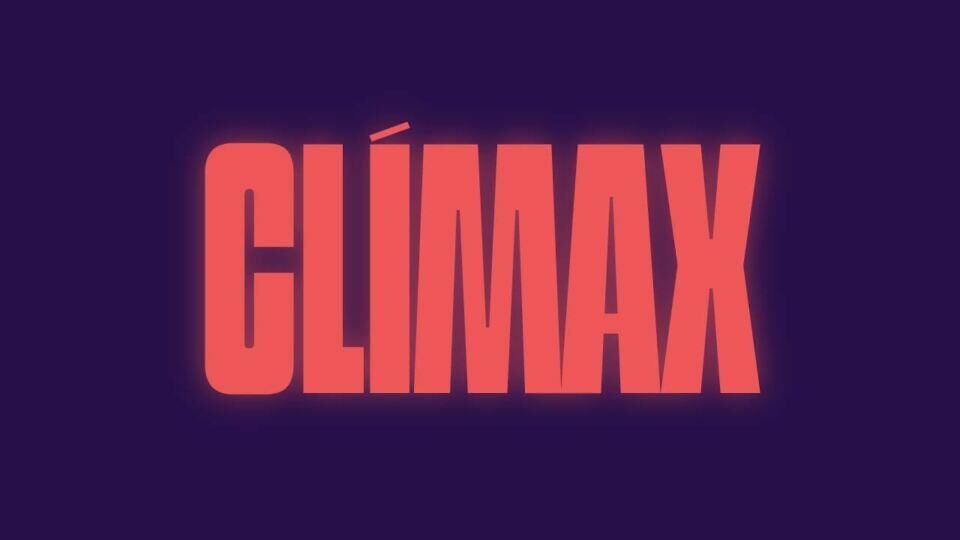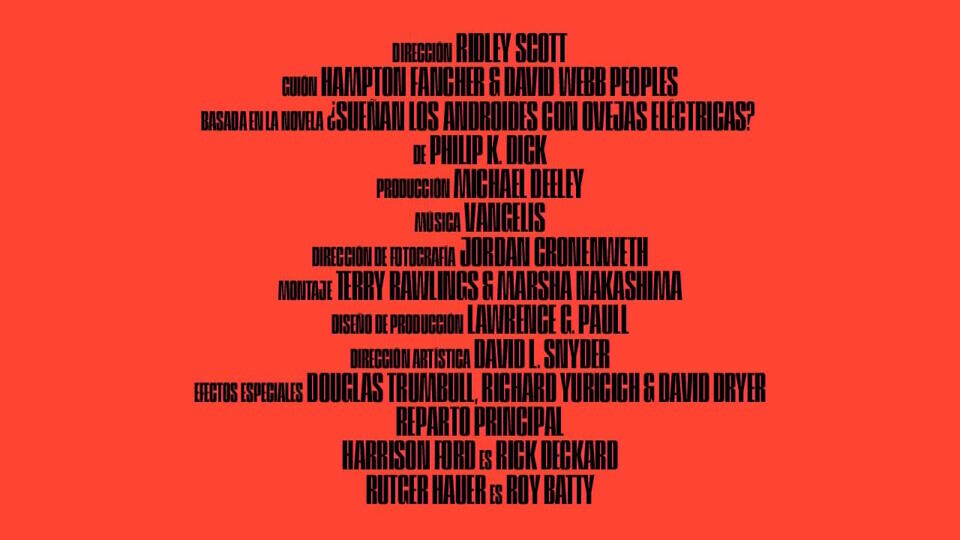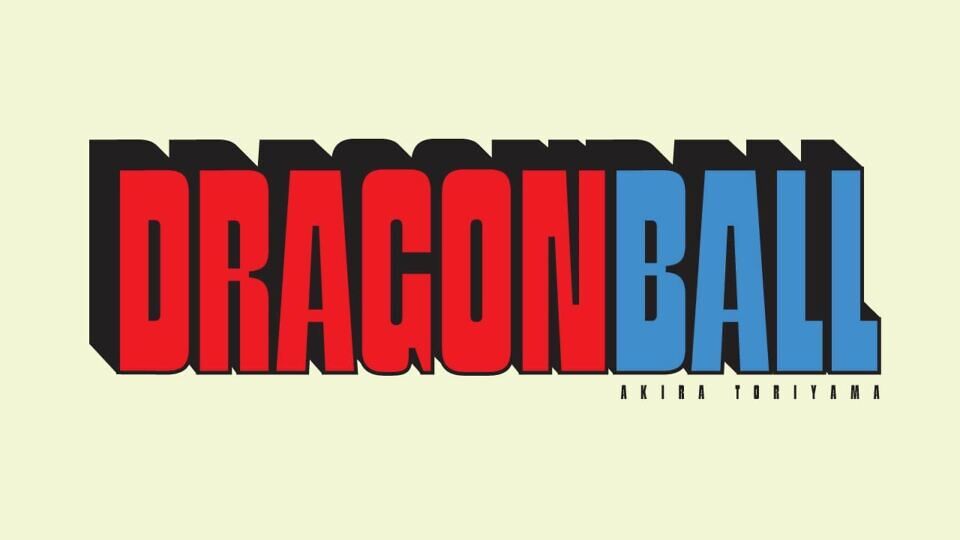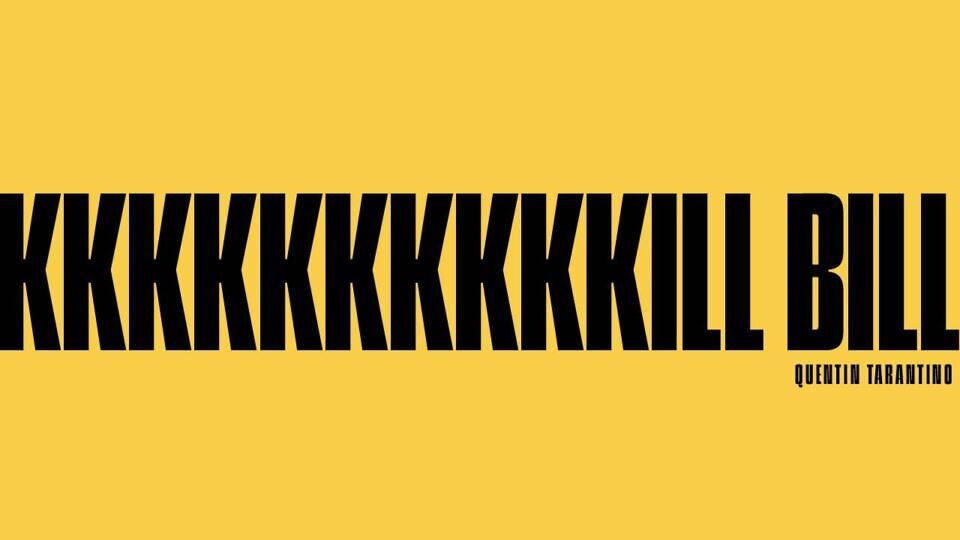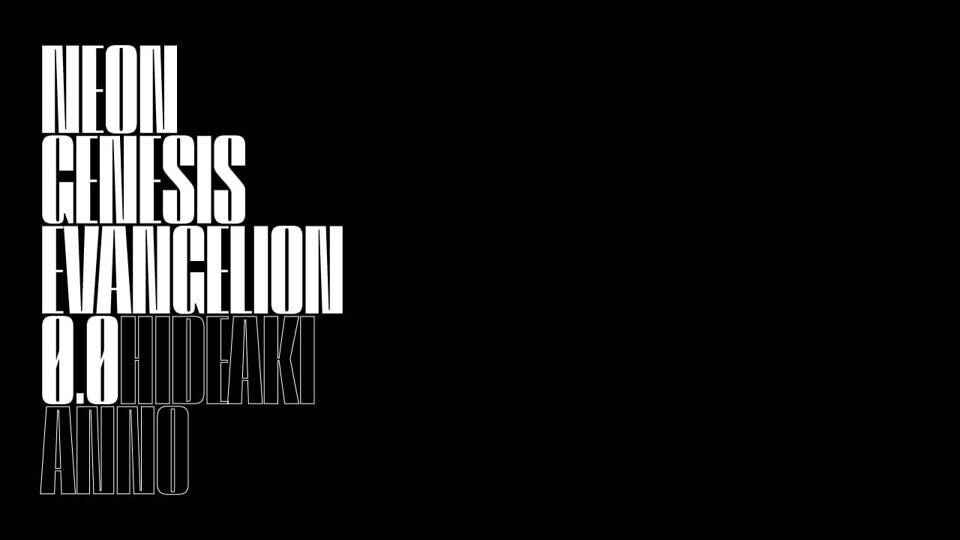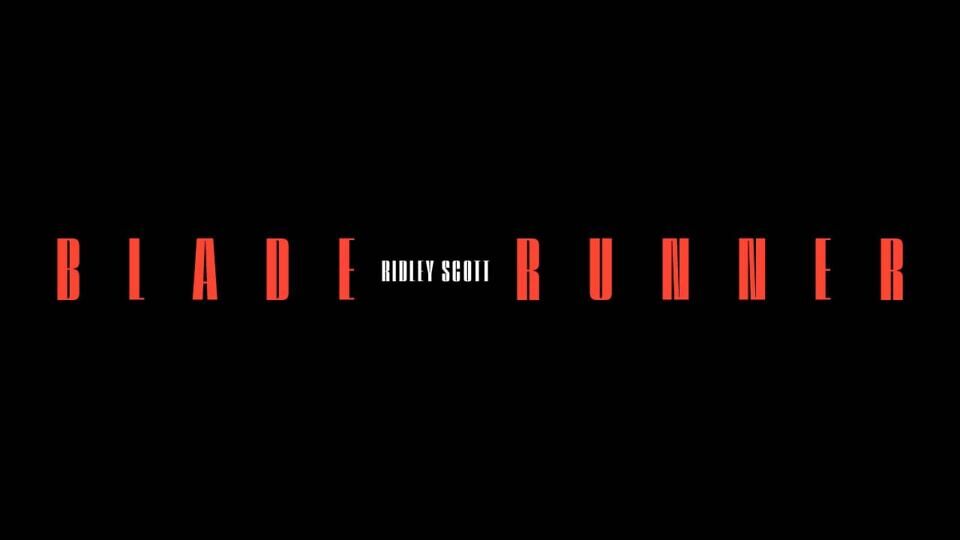
Climax Font
Climax is a bold display typeface defined by sharp, angular cuts and dynamic stroke weights that evoke a sense of tension and movement. Its high-contrast design makes every letter feel charged—perfect for headlines, posters, branding, and editorial use.
It exudes energy and drama, balancing modern elegance with gritty flair. Ideal for grabbing attention, Climax performs best at large sizes, creating visual impact and readability. Whether you’re crafting cinematic titles or edgy brand identities, this font’s striking structure adds a climactic finish to any design.